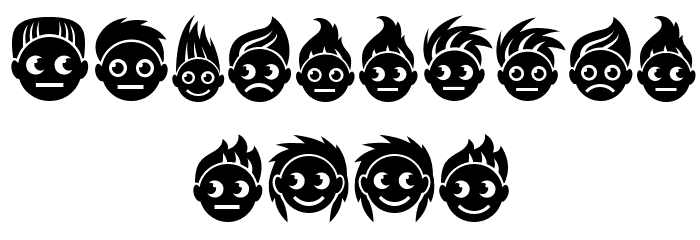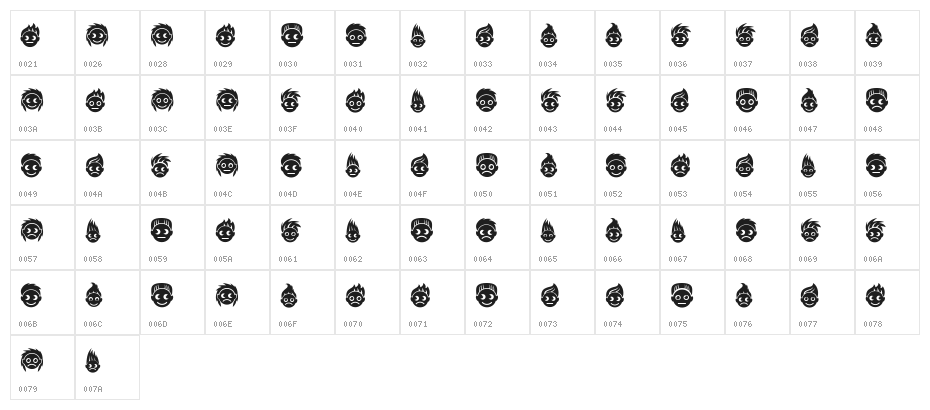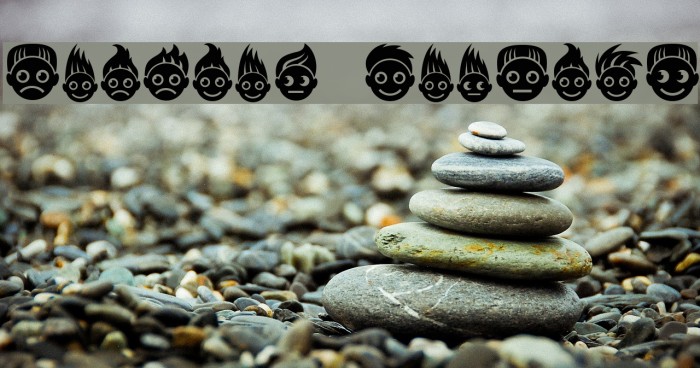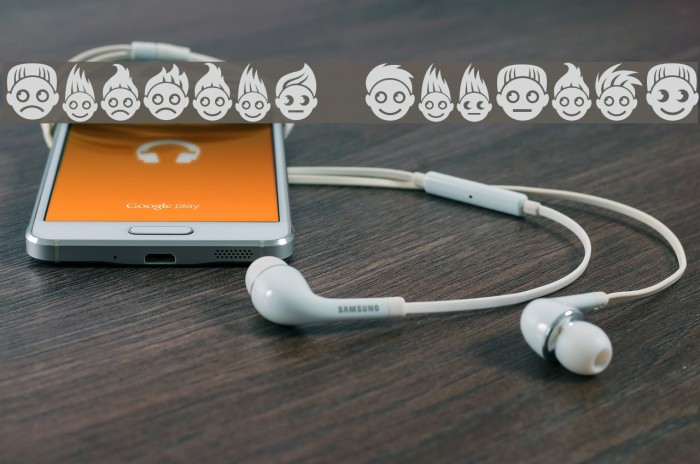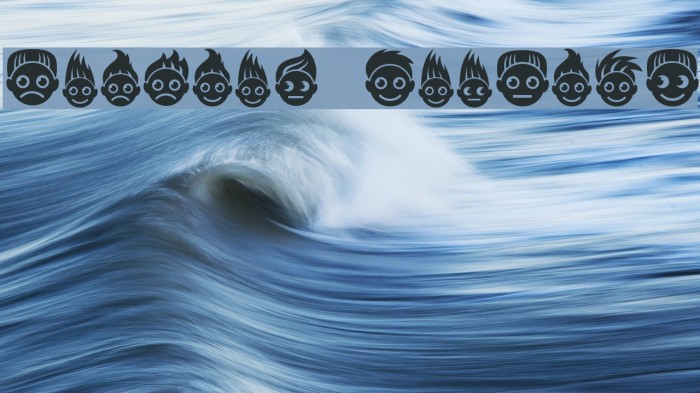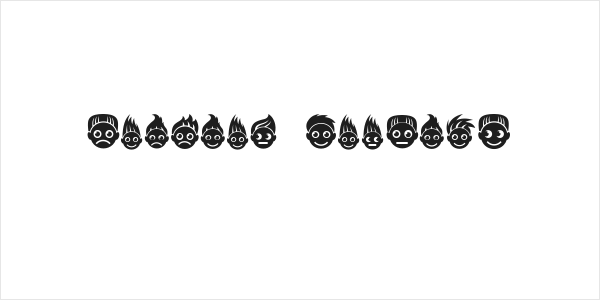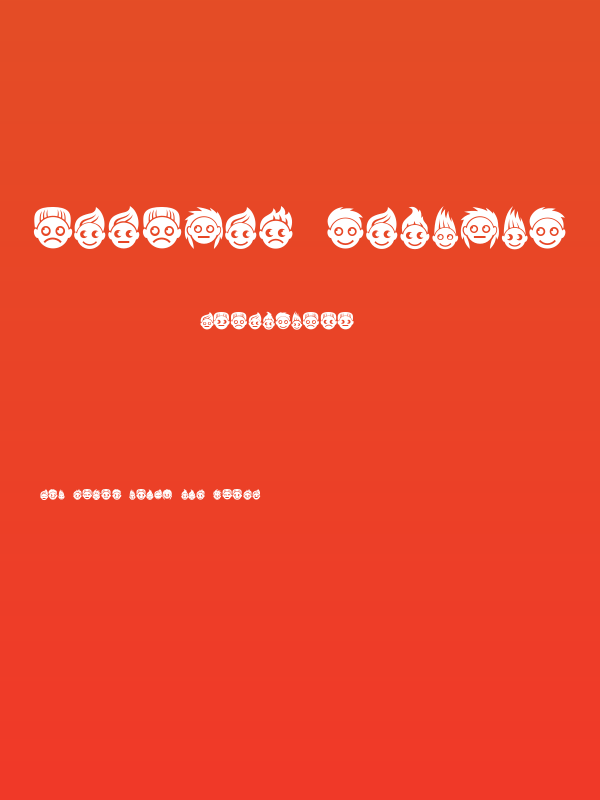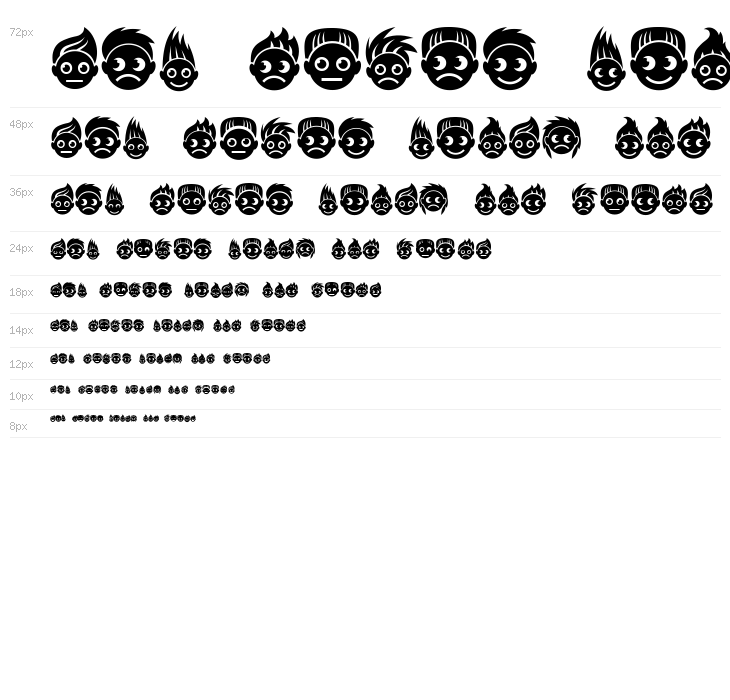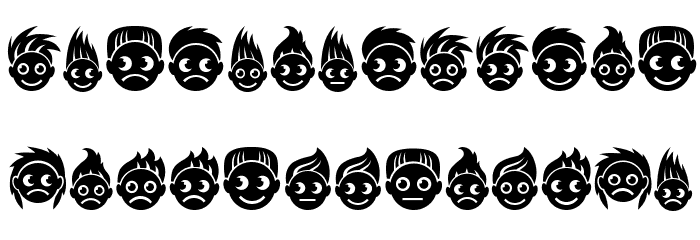
Peoples Regular Font
Peoples Regular Description
A playful and decorative dingbat font composed of various cartoon-style faces with different hairstyles and expressions, rendered in bold, solid black shapes with high contrast and rounded features.
Overall StylePlayful, Decorative, Cartoonish
Use CaseIcons, Decorative elements, Themed graphics
Proposed ProjectsChildrenÒ€ℒs books, educational materials, party invitations, playful branding, stickers, comics, posters.